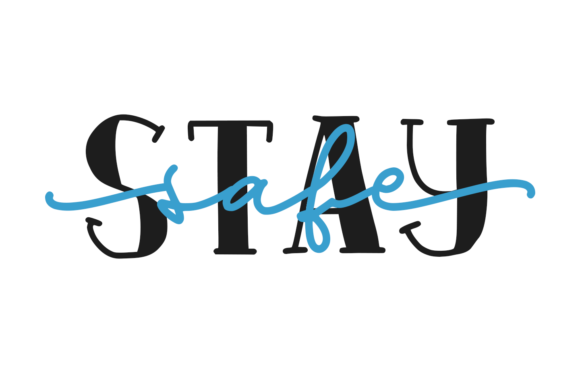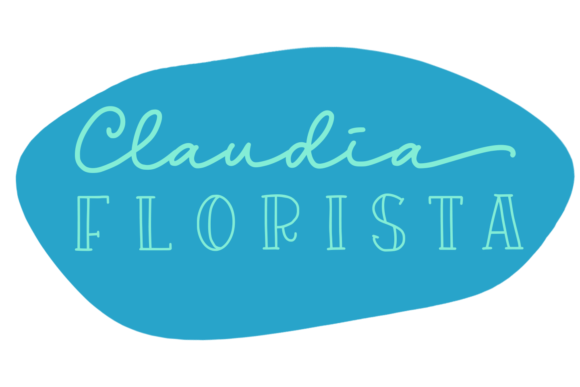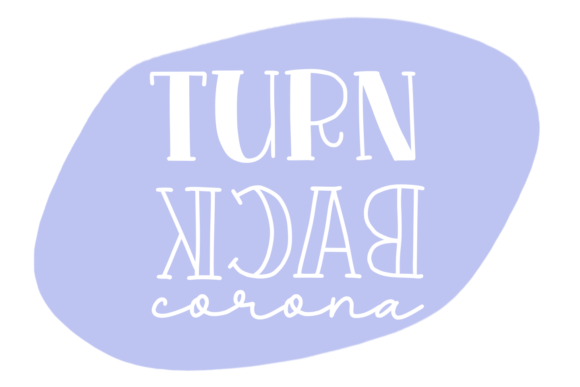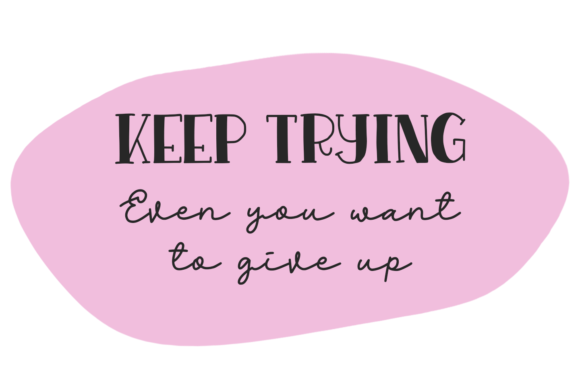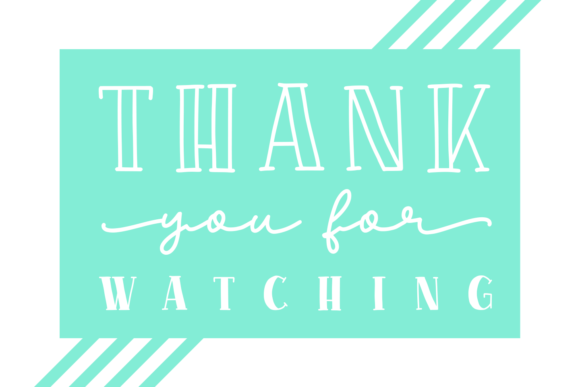
Have you ever been browsing through a craft store, and suddenly, you stumble upon the perfect color palette or texture that sparks an entire design concept? For many creatives, that’s exactly how inspiration strikes. For me, it’s the joy of discovering a new font that sets my imagination running wild. And, trust me, I’m about to share one with you that’s sure to do the same – the Bravo Charlie Font.
This charming display font is designed to bring a smile to your face, with its three unique styles: slab, solid, and script. Whether you’re planning a whimsical wedding, crafting a set of personalized stationery, or simply looking for the perfect font to make your social media posts pop, Bravo Charlie Font has got you covered. As a designer, you’ll appreciate the versatility and authenticity that this font brings to your work, making it an invaluable addition to your creative toolkit.
- Unique Characteristic: The Bravo Charlie Font features a unique blend of modern and vintage elements, giving it a distinctive and eye-catching appearance.
Bravo Charlie Font Review
Overall, I was excited to dive into the Bravo Charlie Font. I’ll break down what I loved and what didn’t quite hit the mark.
- Unique, bold aesthetic that commands attention
- Excellent for use in action-packed or military-themed projects
- Works well in larger font sizes, making it perfect for headings
- Not ideal for body text, as it can be quite overwhelming to read
- Lacks flexibility in terms of font styles (e.g. italics, bold-italic)
- Not suitable for projects requiring a more subtle, elegant font
While the Bravo Charlie Font has some fantastic qualities, it ultimately feels like a one-trick pony. It’s perfect for specific projects where you want to make a bold statement, but it may not be the best choice for more general use. If you’re looking for a font to add some excitement to your next project, Bravo Charlie might be worth considering – but be aware of its limitations.
Getting the Most Out of Bravo Charlie Font
For optimal results, use Bravo Charlie Font in bold or italic styles to add emphasis and visual interest. Pair it with a clean, sans-serif font for maximum contrast.
Bravo Charlie Font is ideal for:
- Infographics and data visualizations
- Marketing materials and promotional content
Alternatives to Bravo Charlie Font
Open Sans is a clean and modern sans-serif font. It is suitable for body text and can be used in a variety of contexts, from digital products to print materials. Open Sans is a great choice for designers who want a professional and approachable look. Compared to Bravo Charlie Font, Open Sans has a more neutral and subtle feel.
Lato is a sans-serif font with a strong and modern feel. It is ideal for use in digital products, such as websites and mobile apps, where a clean and readable font is necessary. Lato has a slightly more dramatic feel than Bravo Charlie Font, making it a great choice for designers who want to make a statement.
Montserat is a sans-serif font with a strong and urban feel. It is suitable for use in digital products, such as websites and mobile apps, where a clean and modern font is necessary. Montserrat has a more geometric feel than Bravo Charlie Font, making it a great choice for designers who want to create a sleek and modern look.